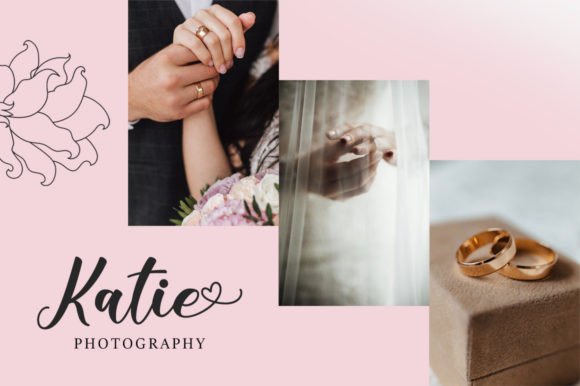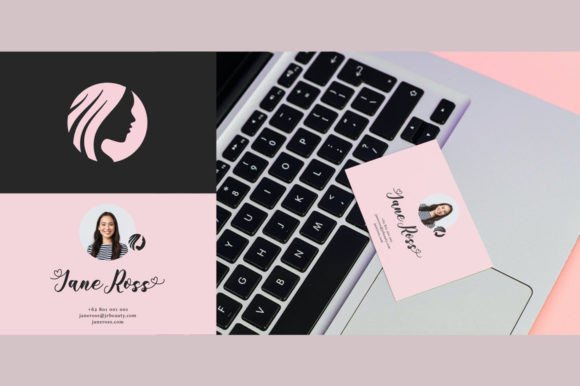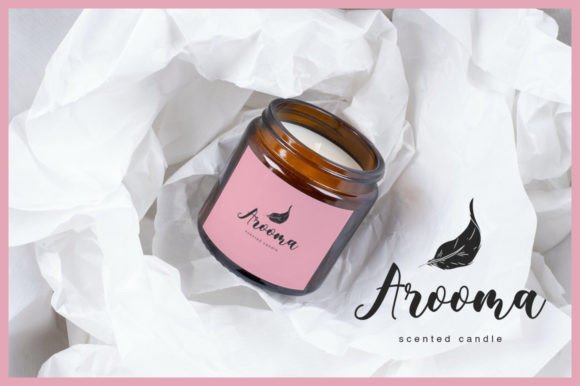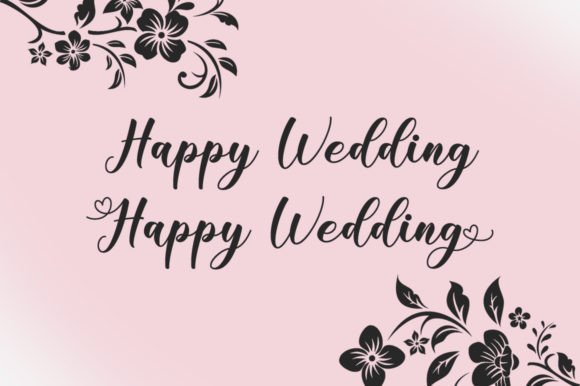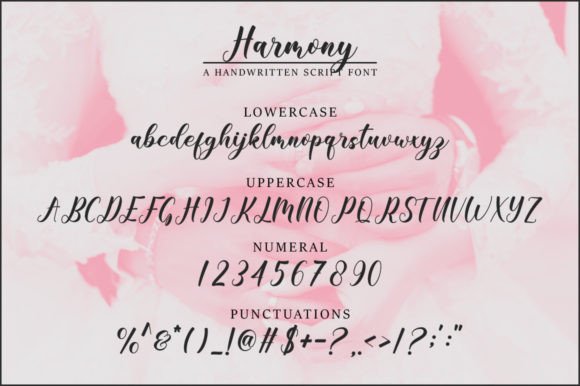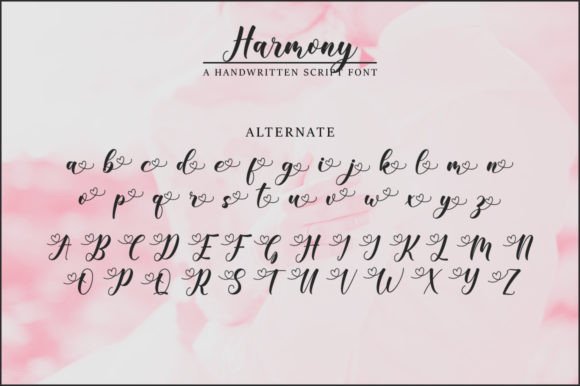
Introducing Harmony Font: A Timeless Handwritten Beauty
Are you a designer or crafter looking for a font that exudes elegance and sophistication? Look no further than Harmony Font, a lovely and timeless handwritten font that is sure to elevate your creative projects. In this article, we’ll dive into the features and benefits of Harmony Font, and explore why it’s the perfect choice for creating eye-catching logos, branding, and quotes.
A Beautifully Crafted Handwritten Font
Harmony Font is a stunning handwritten font that boasts a classic, timeless feel. Its elegant strokes and flowing curves make it perfect for a wide range of creative projects, from logos and branding to quotes and social media graphics. Whether you’re looking to add a touch of sophistication to your designs or simply want to create something beautiful, Harmony Font is the perfect choice.
One of the standout features of Harmony Font is its PUA (Private Use Area) encoding. This means that you can access all of the font’s glyphs and swashes with ease, giving you complete creative control over your designs. With Harmony Font, you can easily add flourishes and embellishments to your text, taking your designs to the next level.
Ideal for Logos, Branding, and Quotes
Harmony Font is specifically designed with logos, branding, and quotes in mind. Its elegant, cursive script makes it perfect for creating eye-catching logos and branding materials that will help your business stand out. Additionally, the font’s flowing curves and strokes make it ideal for creating beautiful quotes and social media graphics that will engage and inspire your audience.
So why should designers and crafters choose Harmony Font for their creative projects? Here are just a few benefits of using this beautiful font:
- Elegance and sophistication: Harmony Font adds a touch of elegance and sophistication to any design, making it perfect for high-end branding and luxury products.
- Flexibility: With its PUA encoding, Harmony Font gives you complete creative control over your designs, allowing you to add flourishes and embellishments with ease.
- Timeless appeal: Harmony Font’s classic, handwritten feel ensures that your designs will never go out of style.
Tips for Using Harmony Font
To get the most out of Harmony Font, here are a few tips to keep in mind:
- Experiment with different sizes and colors: Harmony Font looks beautiful in a range of sizes and colors, so don’t be afraid to experiment and find the perfect combination for your design.
- Add flourishes and embellishments: With its PUA encoding, Harmony Font makes it easy to add flourishes and embellishments to your text. Don’t be afraid to get creative and add your own personal touch.
- Pair with other fonts: Harmony Font pairs beautifully with other fonts, so consider combining it with a sans-serif font for added contrast and visual interest.